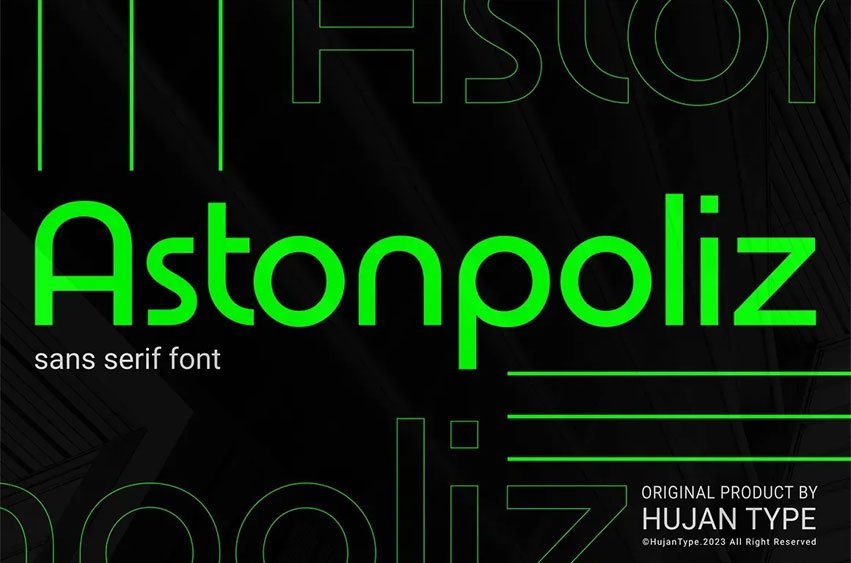
Astonpoliz Font is a high quality sans serif font free that is designed by hujantype and is available for free download personal & commercial use. The free version provides all uppercase and lowercase letters and a few special characters too.
Astonpoliz Font Preview